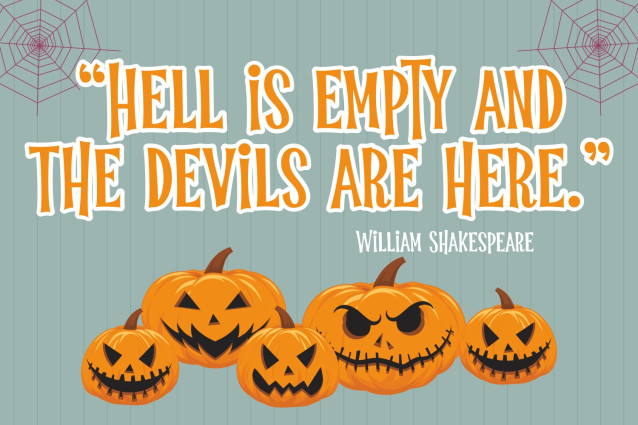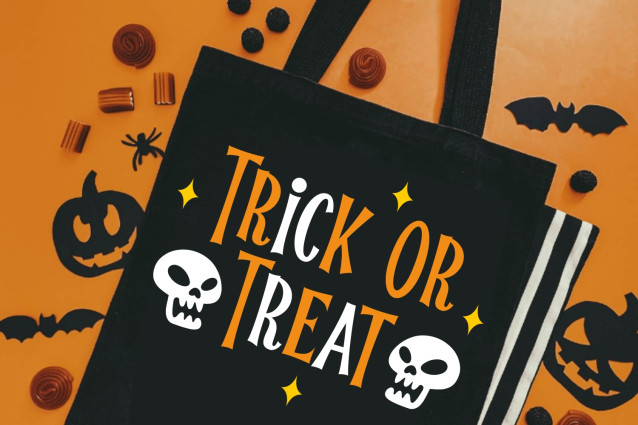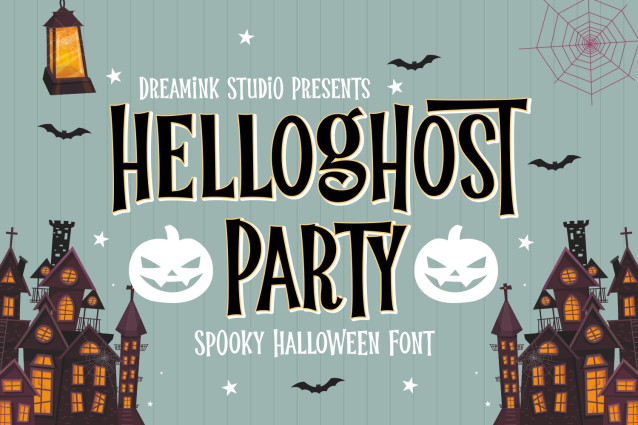
Helloghost Party is a display font specifically designed to create a spooky, mysterious atmosphere and depict the spirit of Halloween celebrations. This font can be used in various Halloween-related media, such as party invitations, posters, merchandise designs, greeting cards, warning signs, or within website designs with Halloween themes
Helloghost Party Font